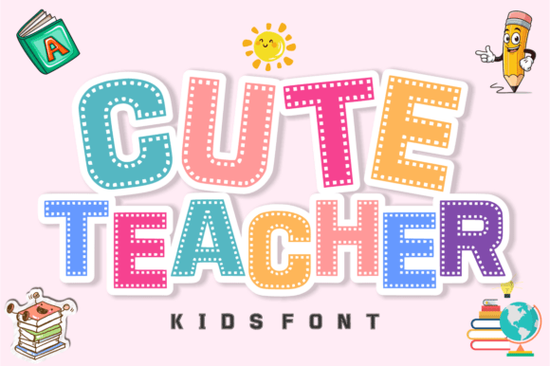
Looking for a playful, easy-to-read typeface that brings energy to classroom materials and kids' projects? The Cute Teacher Font is a bold, colorful display font built for educators, crafters, and anyone working on school-themed designs. Its letters feature a fun stitch-like pattern that gives every word a handmade, crafty feel perfect for bulletin boards, worksheets, stickers, and party decorations.
What Makes the Cute Teacher Font Stand Out?
Most classroom fonts are either too plain or too hard to read for young learners. The Cute Teacher Font strikes a balance. Each letter has a bold, outlined structure that children can easily recognize, while the decorative stitching detail adds personality without sacrificing clarity.
This makes it a strong choice for:
- Nursery wall art and storybook titles
- Flashcards and interactive learning materials
- Birthday invitations and party banners
- Print-on-demand products like T-shirts, mugs, and tote bags
It pairs naturally with primary colors reds, blues, yellows and school-themed illustrations like pencils, globes, apples, and sunshine graphics.
Who Is This Font For?
If you're a teacher decorating a classroom, a crafter running Cricut projects, or a small business owner selling educational printables on Etsy, this font was designed with you in mind. It works especially well for the "Teacher Life" community people who want their designs to feel warm, approachable, and fun.
Print-on-demand sellers will also appreciate how well it renders on physical products. The bold outlines hold up at different sizes, so whether you're printing a large poster or a small sticker, the letters stay crisp and readable.
How Does It Compare to Other Display Fonts?
Compared to the clean, elegant look of a Welcome font or the sporty edge of the Varsity College bundle, Cute Teacher takes a completely different direction. It's playful first, professional second which is exactly what kids' projects and classroom decor need.
If you're working on a children's book or a playful brand identity, the Brother Children font offers a similar youthful energy but with a different stylistic approach. And for projects that call for a more custom or automotive feel, the Roadster Customs font gives you that bold, personalized look.
Each of these fonts serves a different purpose, so having a few in your toolkit means you're ready for a wider range of client and personal projects.
Where Can You Use the Cute Teacher Font?
This font is versatile enough for both digital and print projects. Here are some specific ideas based on what creators are actually making:
- Classroom decor Bulletin boards, door signs, name tags, and desk labels
- Educational resources Worksheets, e-book covers, and reading logs
- Crafting with cutting machines Cricut and Silhouette projects, vinyl decals, and iron-on transfers
- Event materials Back-to-school banners, teacher appreciation cards, and graduation posters
- Digital products Educational app interfaces, printable planners, and social media graphics
The stitch pattern detail also makes it a great fit for quilt-themed designs and sewing-related crafts, adding texture that mimics real embroidery.
Tips for Getting the Best Results
To make the most of this font, keep a few things in mind:
- Use it at larger sizes. Display fonts like this one shine on headlines and titles, not fine print.
- Stick with bold, solid backgrounds. The outlined letters look best against clean, contrasting backdrops.
- Pair it with simple body fonts. A clean sans-serif for descriptions keeps the focus on the decorative headline.
- Layer with school-themed graphics. Pencils, rulers, chalkboards, and apples complement its aesthetic perfectly.
Ready to Start Creating?